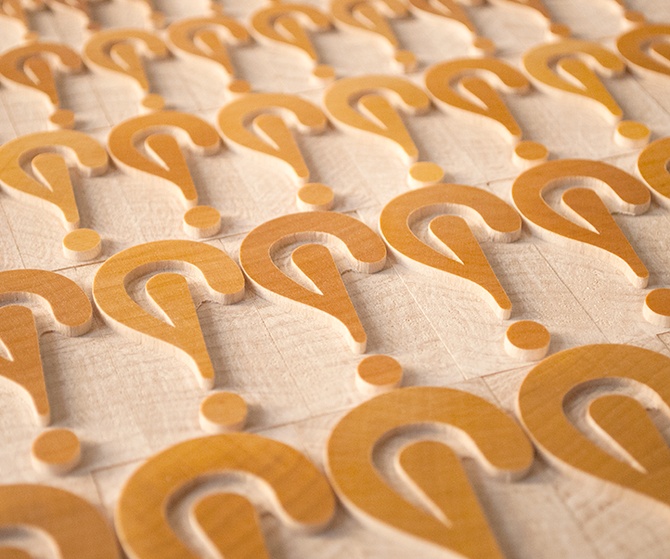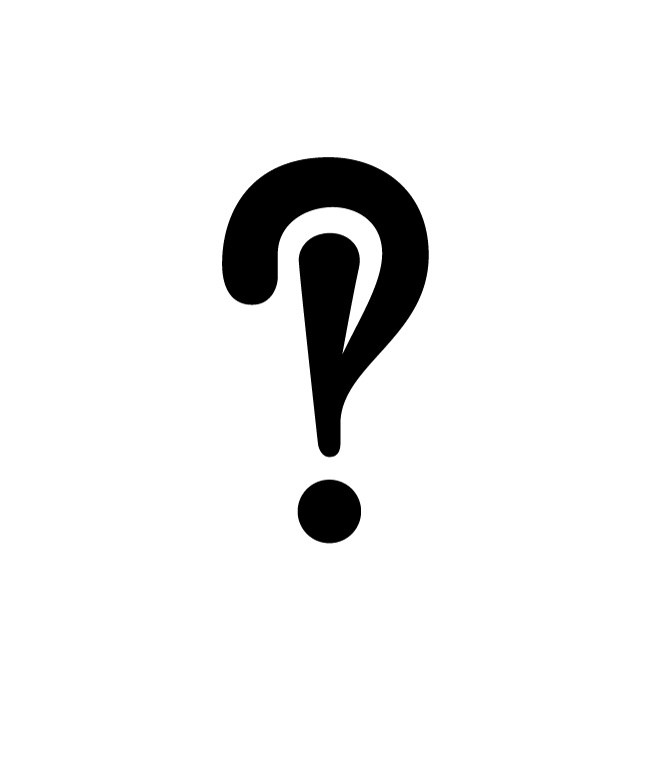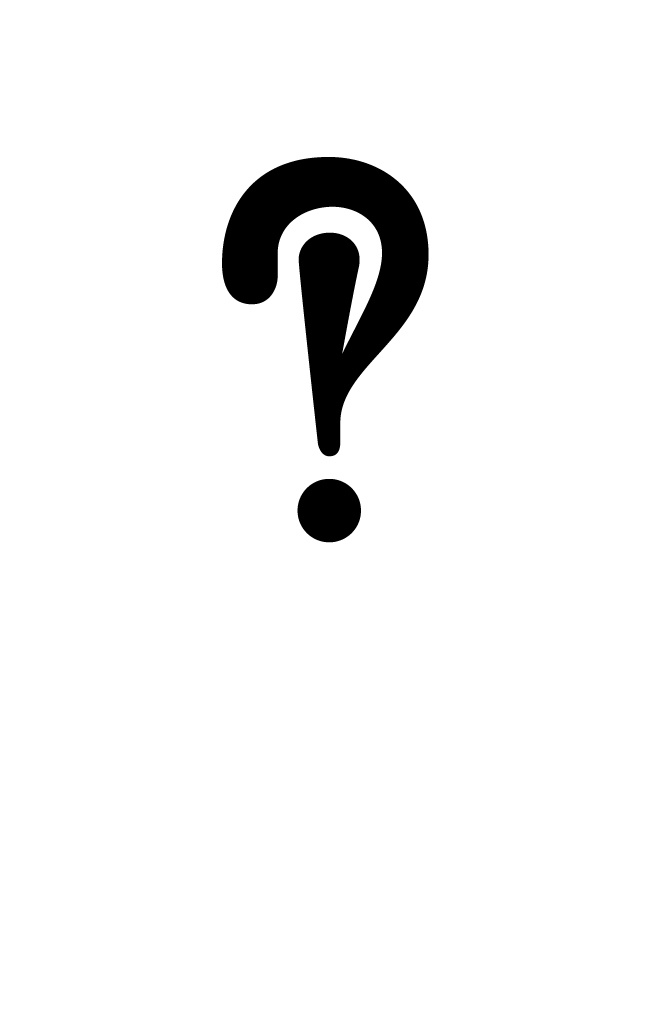
Invented in 1962 by Martin K. Speckter, the interrobang expresses exclamation and bewilderment all in one symbol: ‽.
There are two ways to draw an interrobang, either the exclamation point explodes through the top of the question mark or it nests in the bowl of the question mark. We elected to draw ours with the exclamation safely resting inside the bowl.